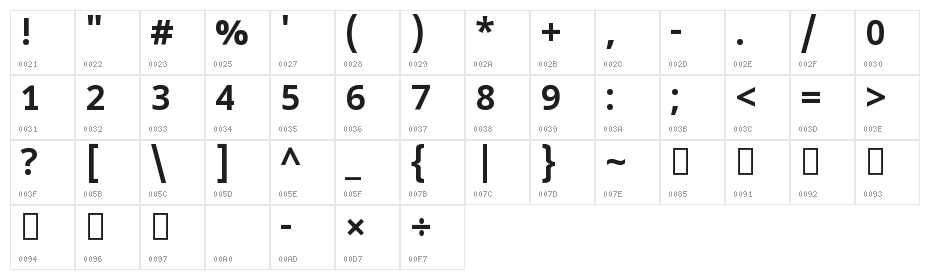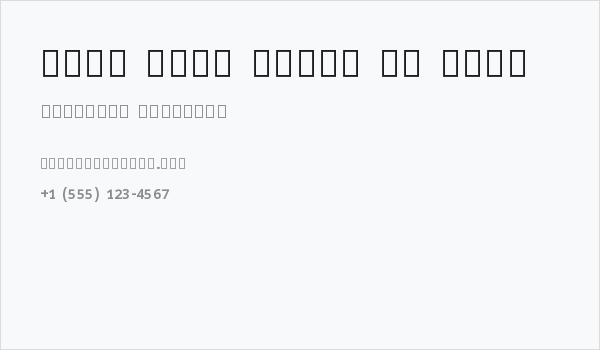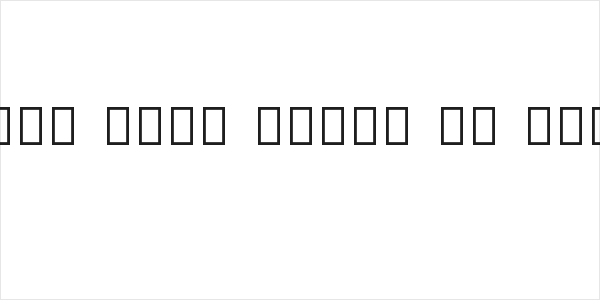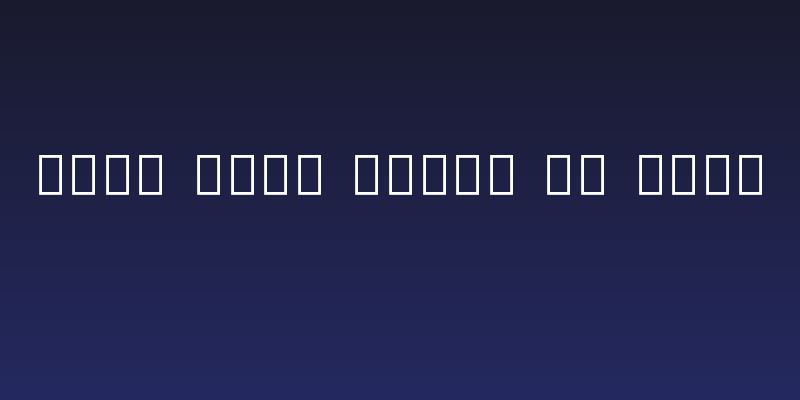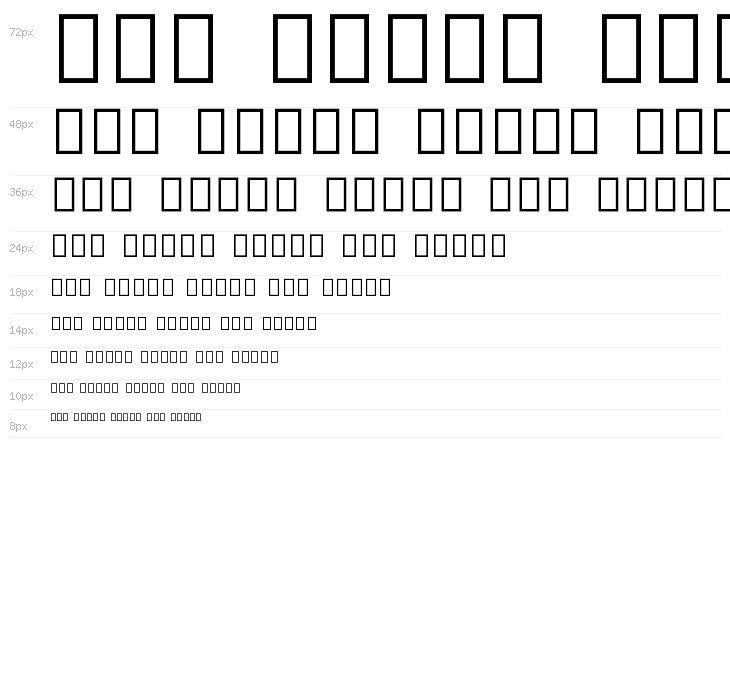
Noto Sans Oriya UI Bold Font
Noto Sans Oriya UI Bold Description
This font is a bold, sans-serif typeface designed for clear and legible text display. It features a modern and clean design with uniform stroke widths, making it ideal for user interfaces and digital displays. The characters are well-proportioned, providing excellent readability across various sizes. The numerals and special characters are distinct and easy to differentiate, enhancing its functionality in diverse applications. Its straightforward style ensures that it remains unobtrusive while still being visually appealing.
| Use Case | Headlines, User Interfaces, Digital Displays |
| Proposed Projects | Suitable for user interfaces, digital displays, web design, and mobile applications. |